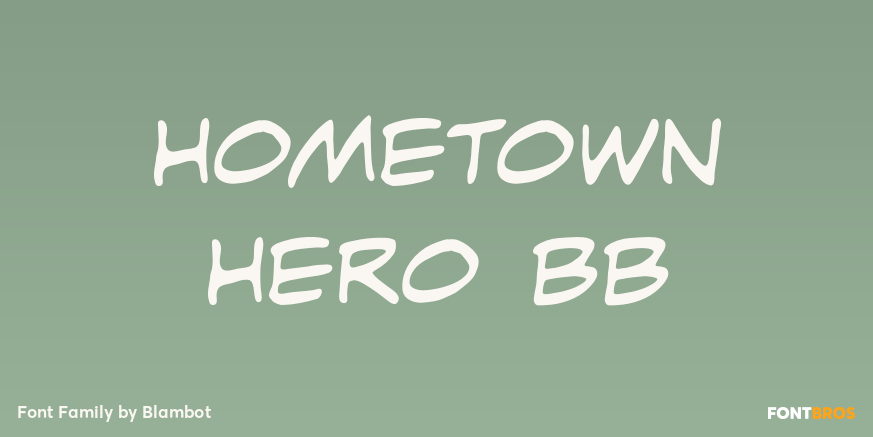
Hometown Hero BB
About Hometown Hero BB
A classic, 70s-inspired comic book dialogue typeface. This font family harkens back to the days when a Hunt Crowquill was a letterer\’s best friend. Comes with Regular, Italic and Bold. The OpenType version has autoligatures to swap out repeating letters…